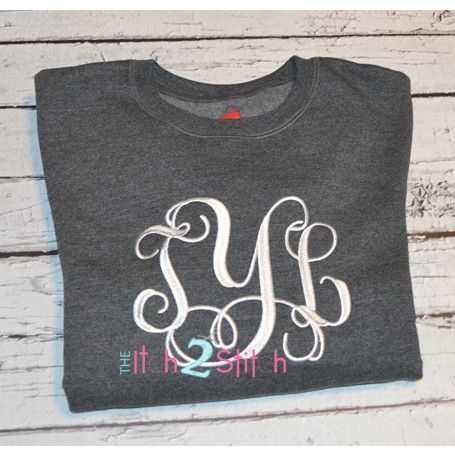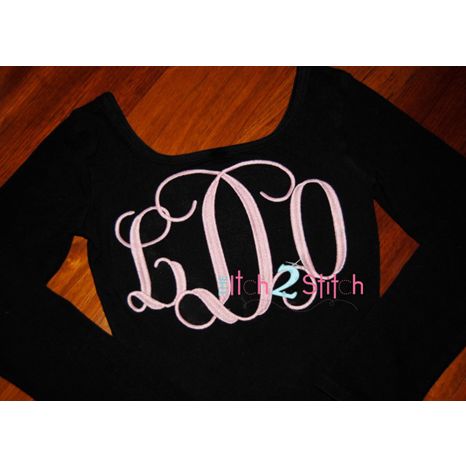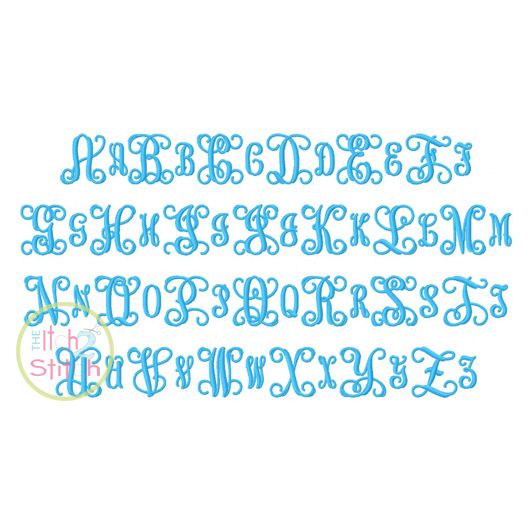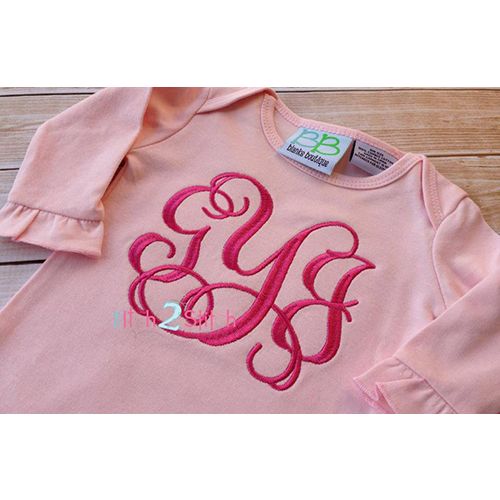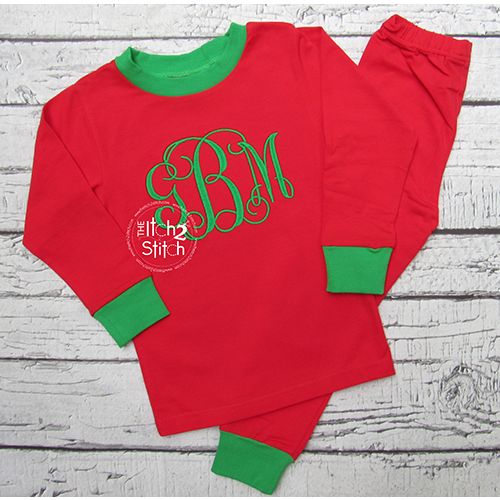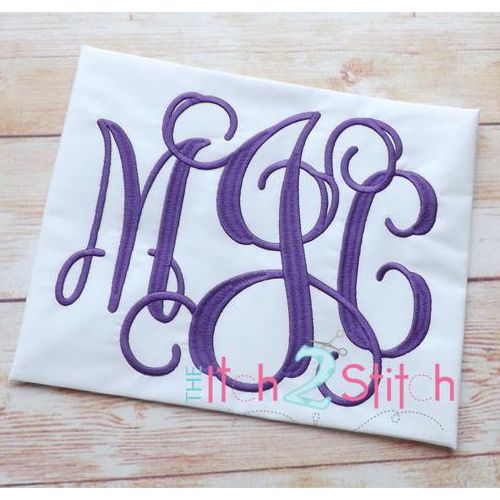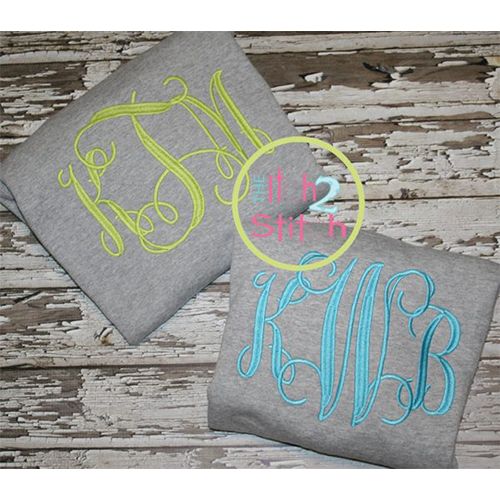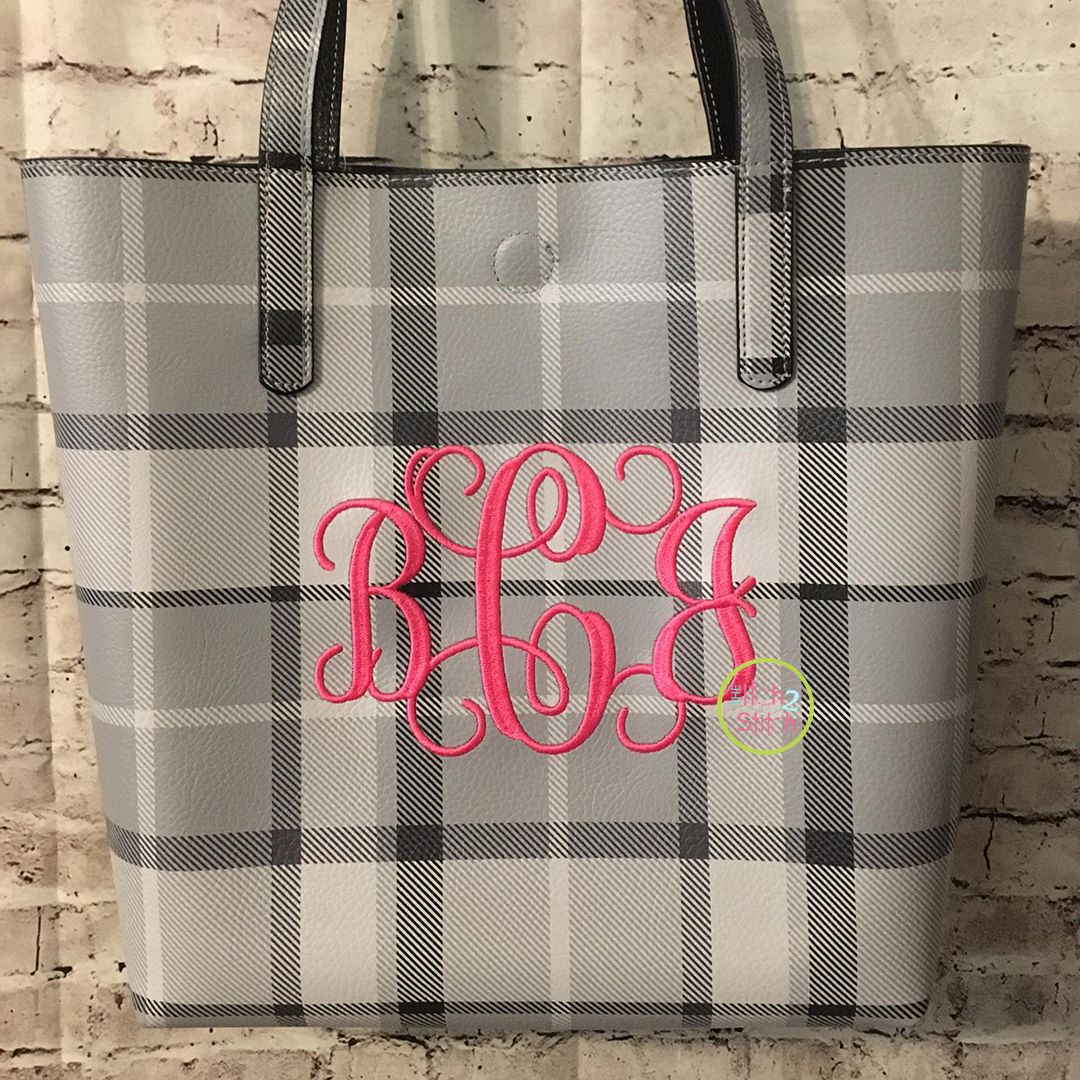
You will receive large center "capital letters" and smaller "lowercase letters" Aa-Zz (52 files) in four sizes. Please note that this jumbo set features a split satin stitch style. Smaller sizes sold separately.